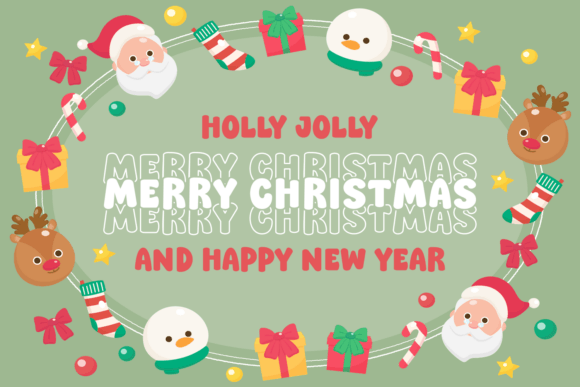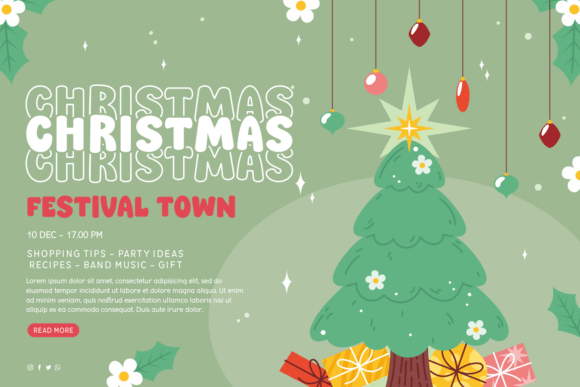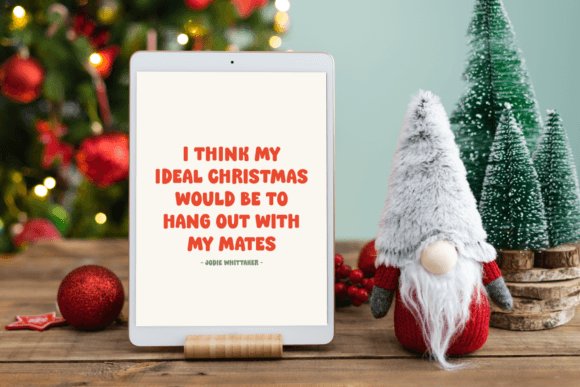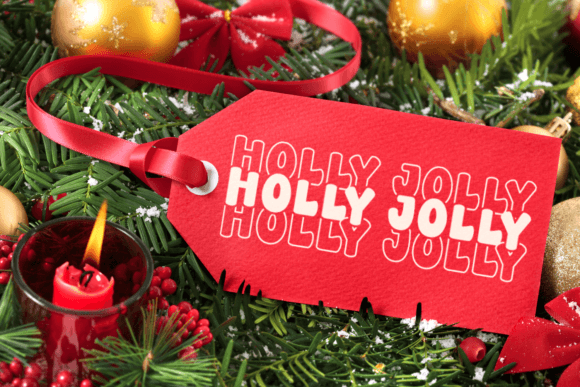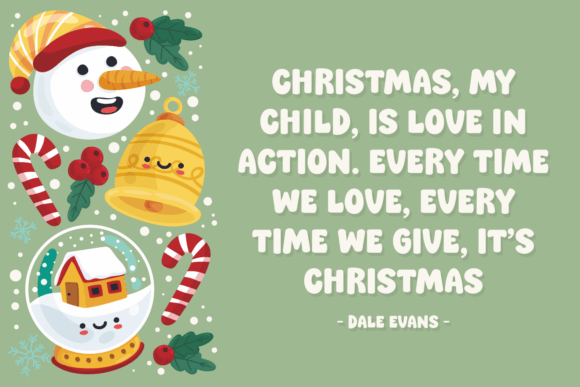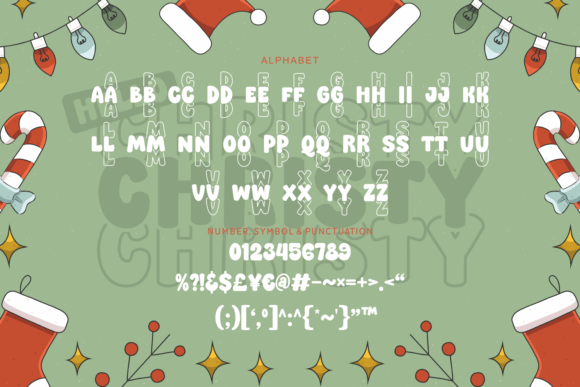
Introduction to Hello Christy Font Font
Fonts play a crucial role in design, and the Hello Christy Font font is a typeface that brings both character and versatility to any project. Whether you’re working on a branding project, a website, or a print design, the Hello Christy Font font offers a unique style that can elevate your work.
Hello Christy is a playful and fun display font that features unique, stacked characters.
Itβs perfect for creating eye-catching designs with a cheerful and modern look .
Key Features of Hello Christy Font Font
Why Choose Hello Christy Font Font?
The Hello Christy Font font is more than just a typeface β it’s a design tool that helps you communicate your message with style and clarity. Its unique character set and versatile design make it suitable for a wide range of applications, from elegant invitations to bold headlines.
With its carefully crafted letterforms and balanced proportions, the Hello Christy Font font ensures readability and visual appeal across all mediums.
What makes Hello Christy Font font special?
The Hello Christy Font font stands out with its unique design, exceptional readability, and versatility across various design applications.